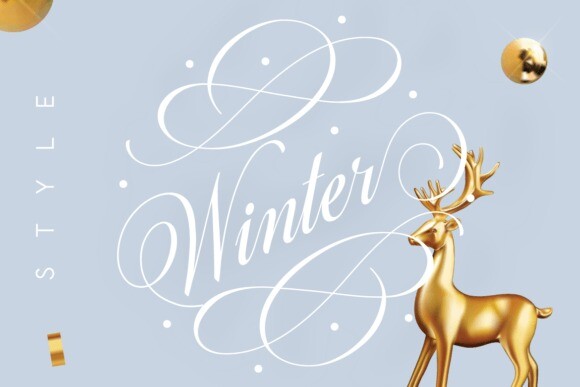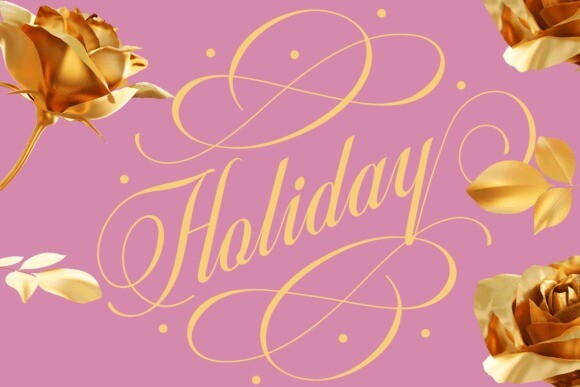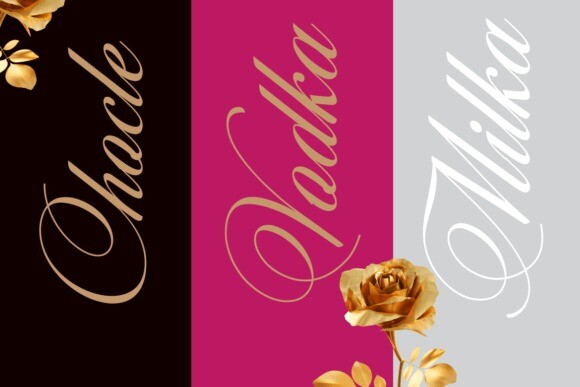
Cruate Font
Cruate is a calligraphy font that helps designers to create beautiful compositions. It looks stunning on wedding invitations, cards, quotes, greeting cards, logos, business cards and every other design which needs a customized touch.
How quickly to create main decor element:
1.Type == (equal signs).
Or type any Text========== Then move decor elements in the right position.
***Don’t change size of text during this process, because it may not create decor elements (ligatures).
Or choose the décor element in Glyphs category.